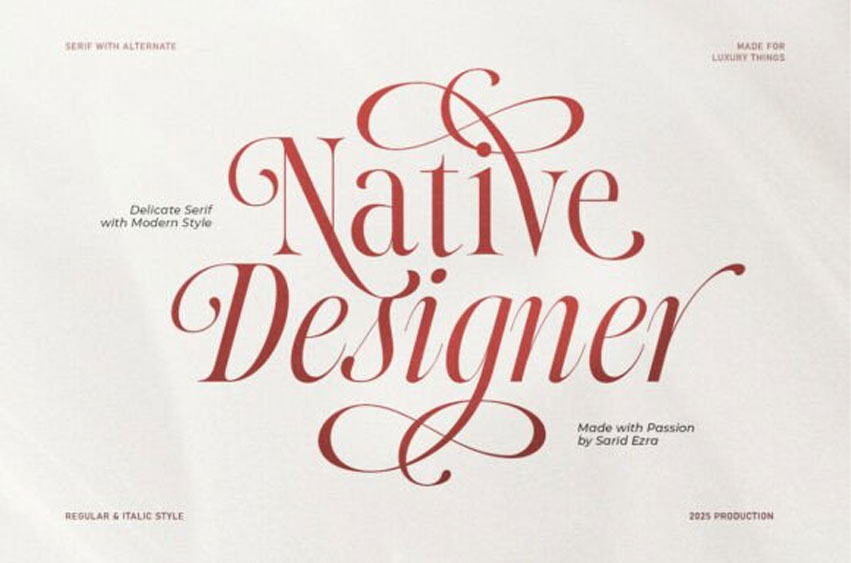
Native Designer Font
Native Designer Font is a classic yet modern serif family that exudes luxury and glamour. With a true italic version available, this font family is suitable for a variety of uses, including wedding invitations, logos, and branding.
Featuring stylish alternates in both regular and italic styles, Native Designer will make your designs look stunning. Additionally, it supports multiple languages!